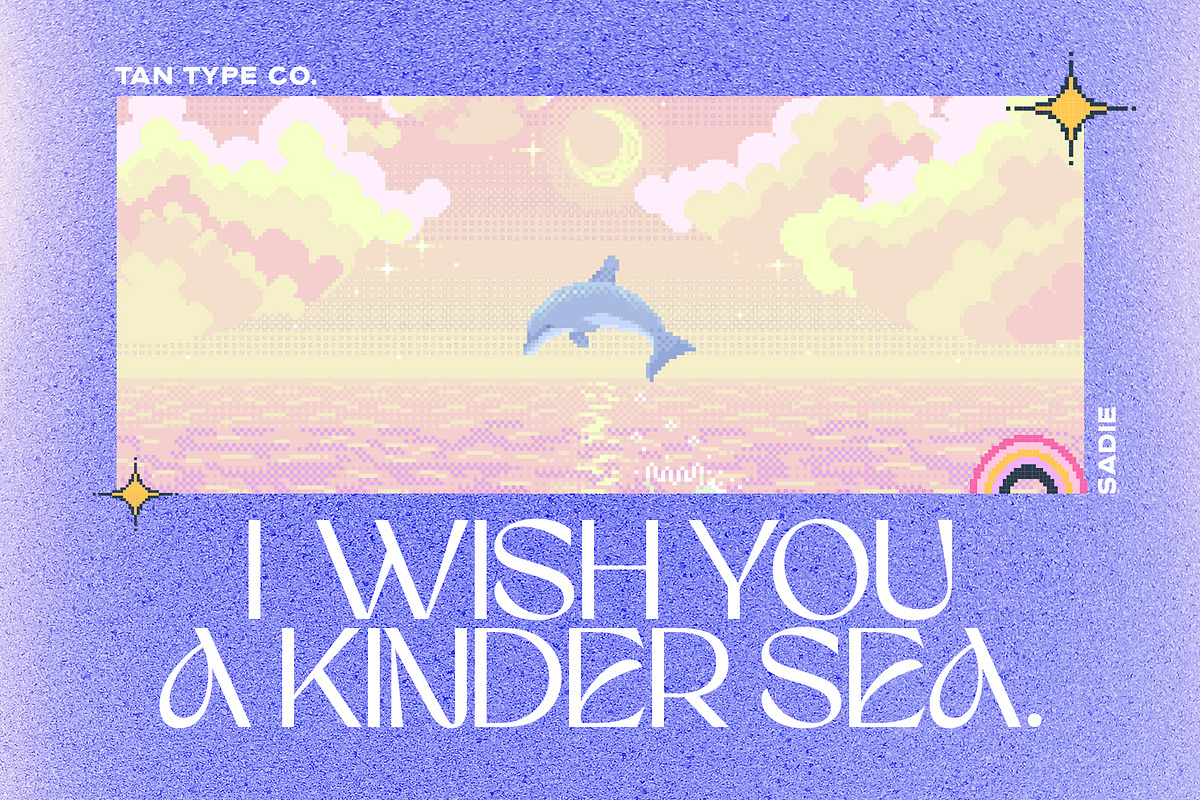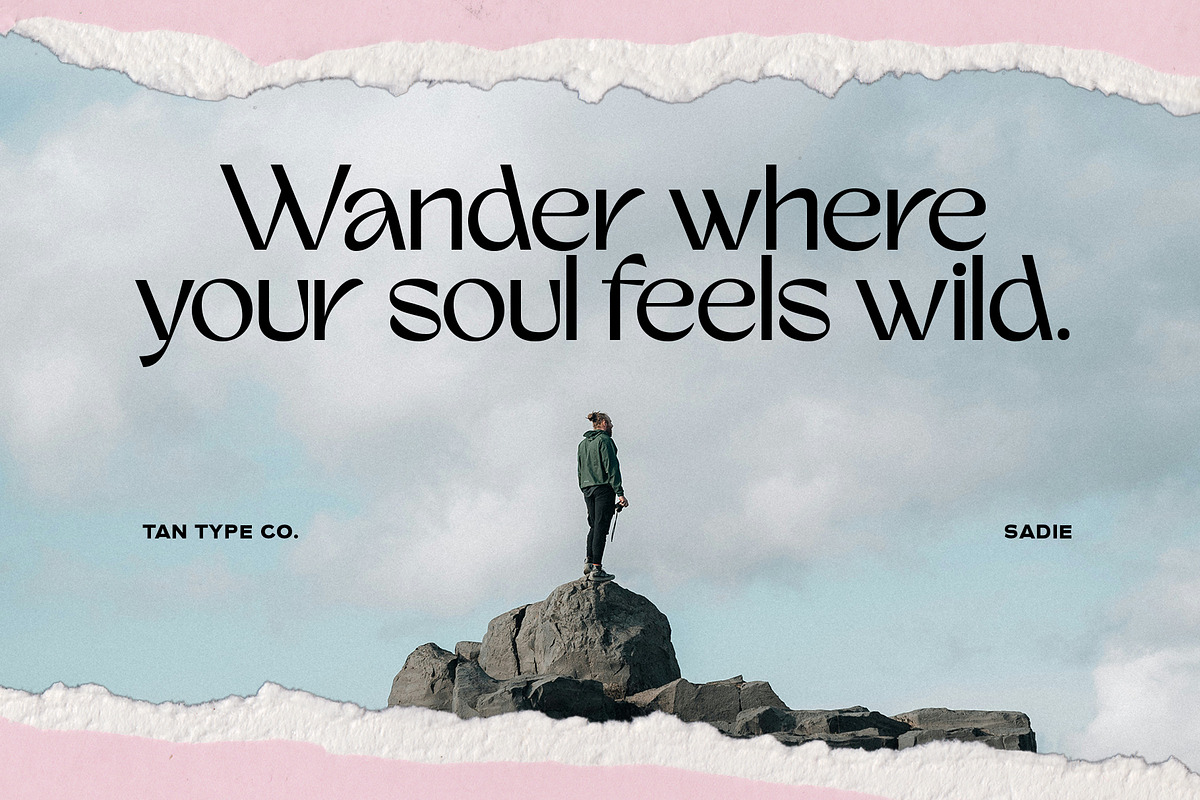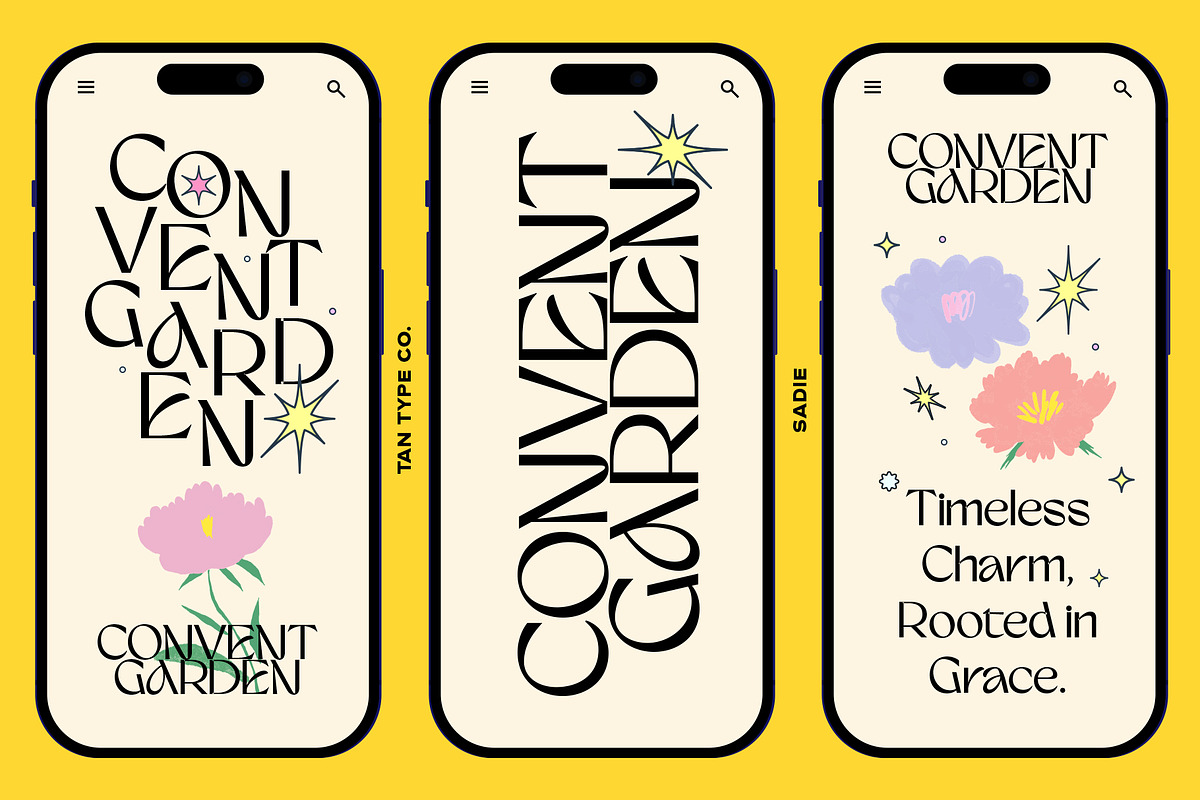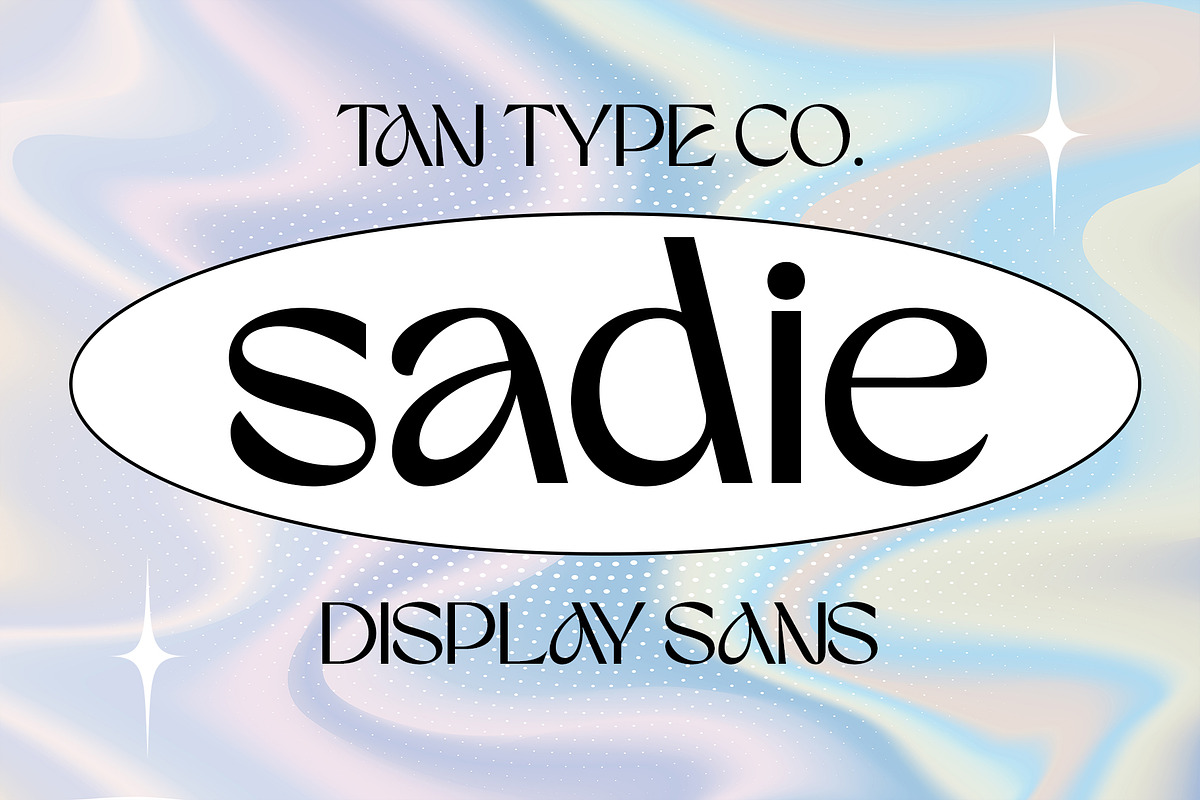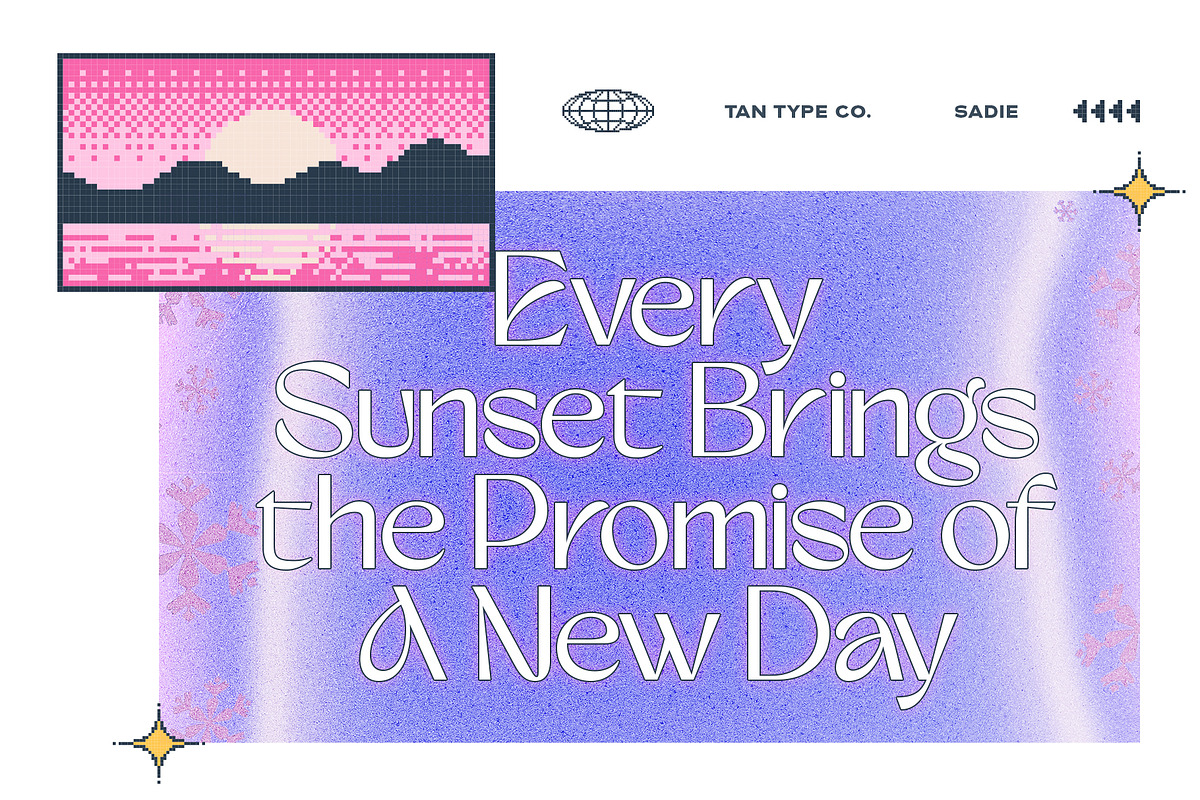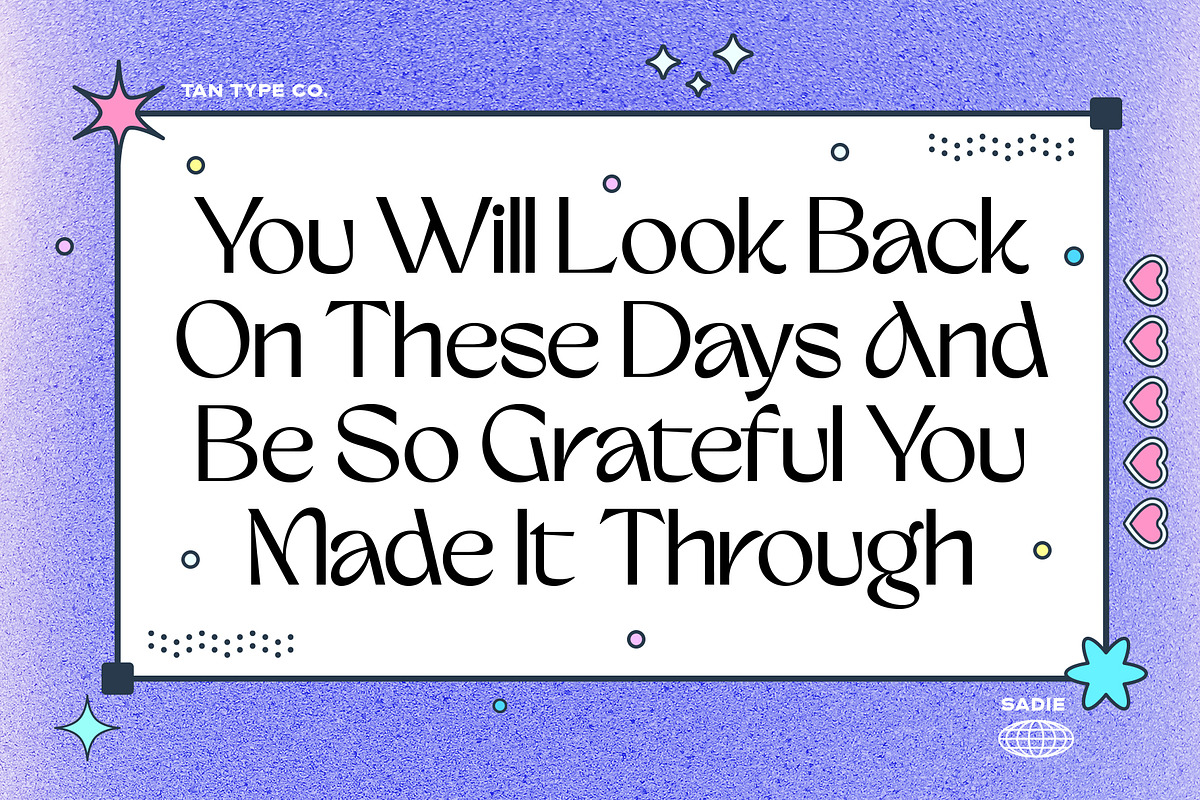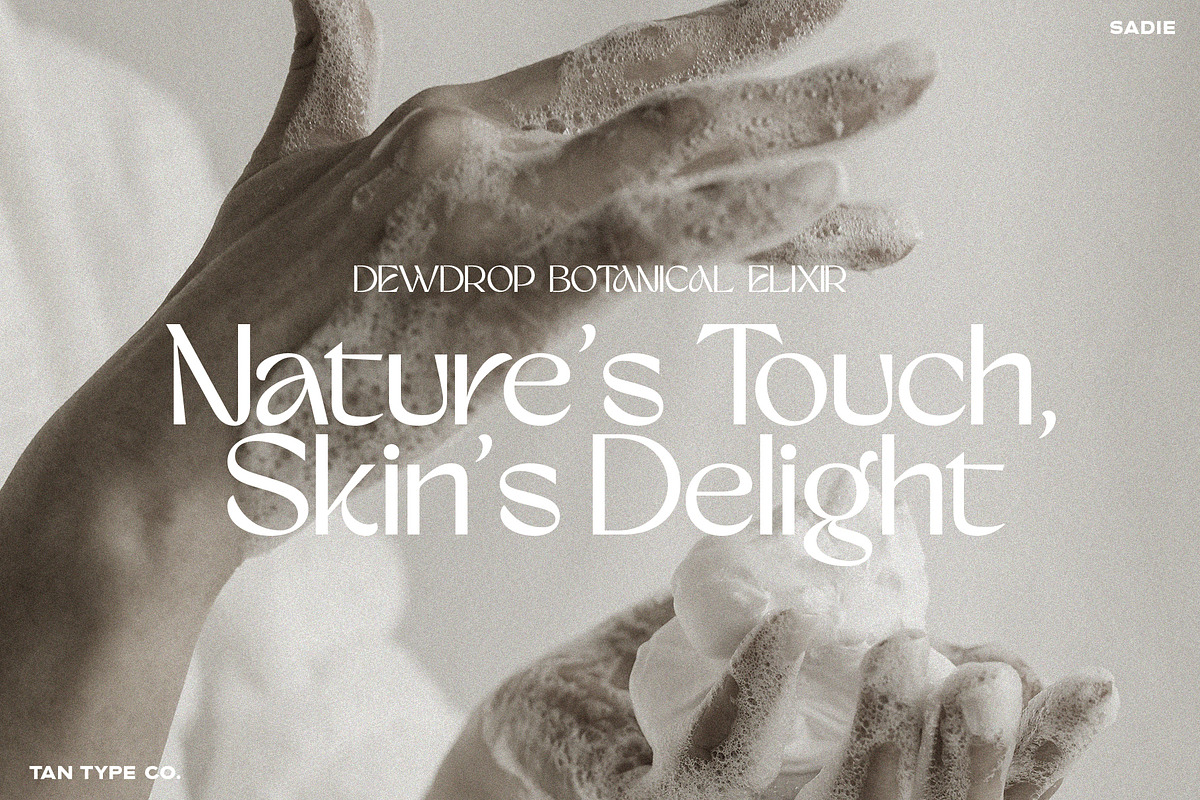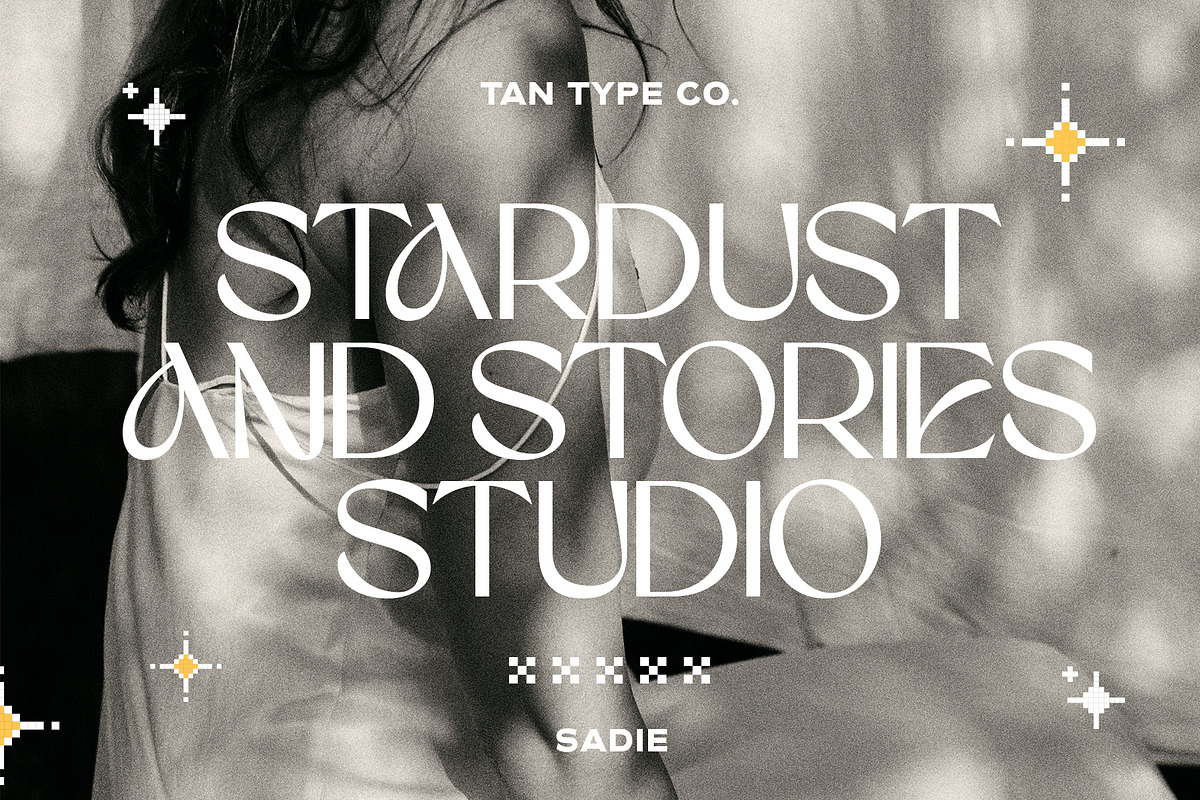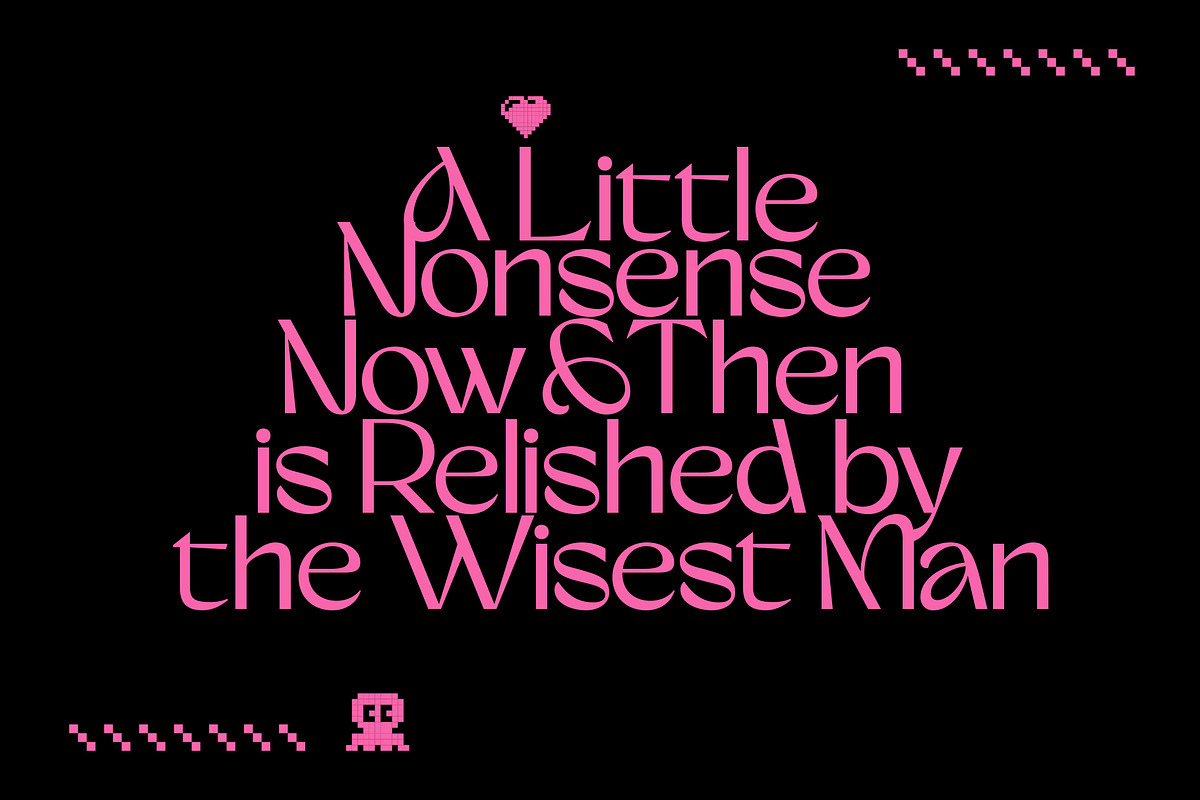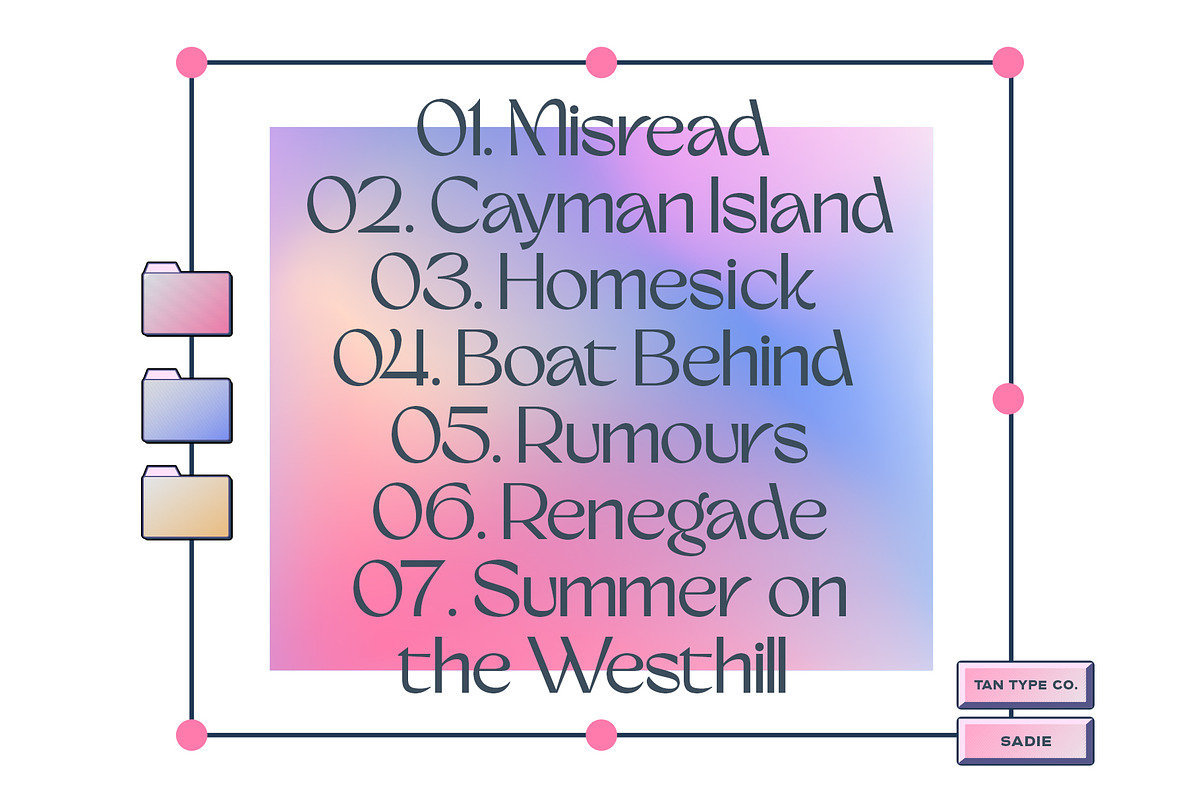
TAN - SADIE
Sadie is a laid-back sans serif with a fresh, clean vibe. It’s super easy to read, with simple shapes and smooth lines—but look a little closer, and you’ll notice a few subtle twists that give it just the right amount of personality. It’s super easy to read, which makes it great for labels, cards, signs, or anything you want to look neat and friendly.
Sadie has a fresh, summery feel—kind of like a cool breeze on a warm day. It’s not too fancy or fussy, but it’s definitely not boring either. There’s just a hint of quirk in the letters that gives it a bit of playful charm.
Whether you’re making something by hand or designing on your computer, Sadie is an easygoing font that adds a cheerful touch without getting in the way.